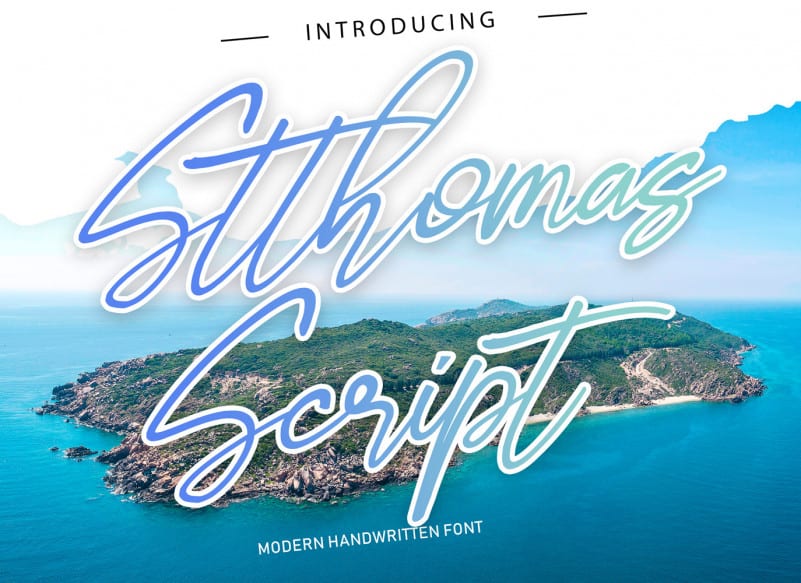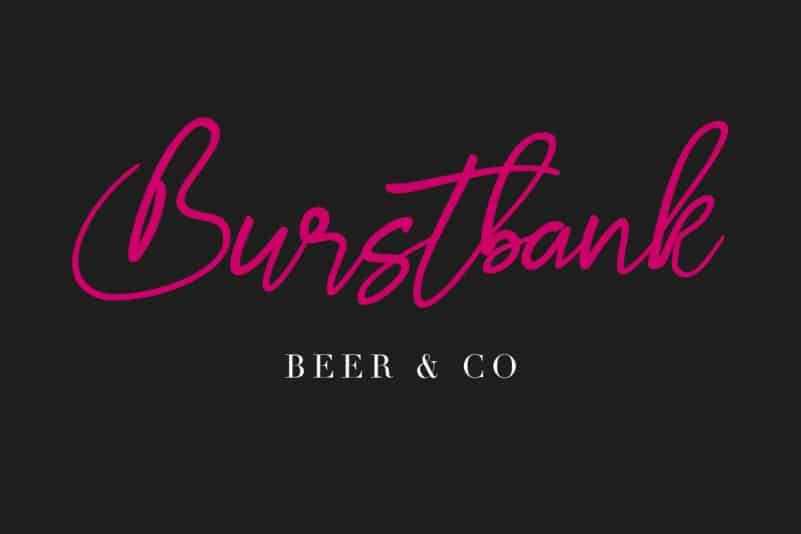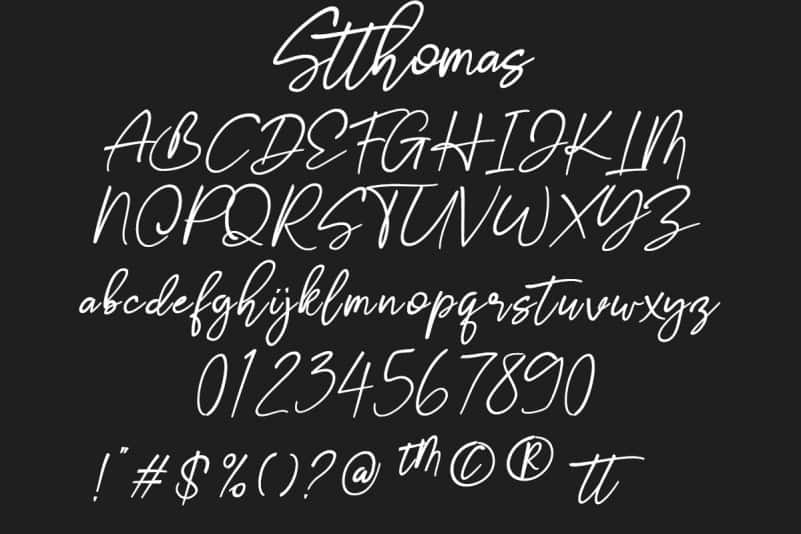
Stthomas Script Font is a stylish modern calligraphy font. It’s containing upper & lowercase characters, all punctuation and numerals. For those of you who are needing a touch of elegance and modernity for your designs, this font was created for you!
Stthomas Script Font is great for Invitations, Greeting Cards, Posters, Name Card, Quotes, Blog Header, Branding, Logo, Fashion, Apparel, Letter, Book, Magazine, Advertising Design, Stationery and more!